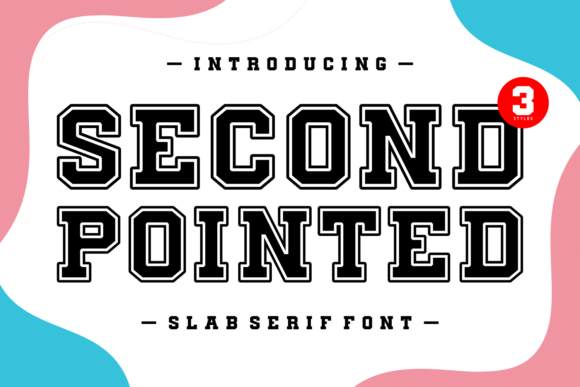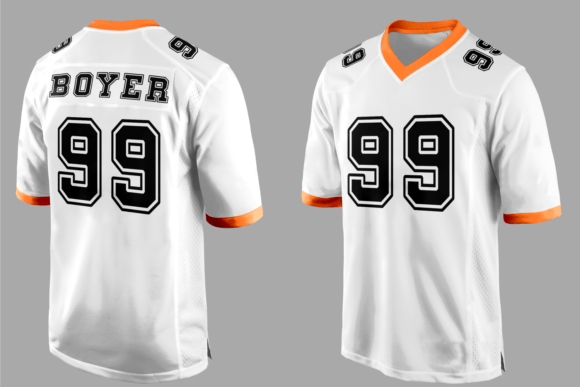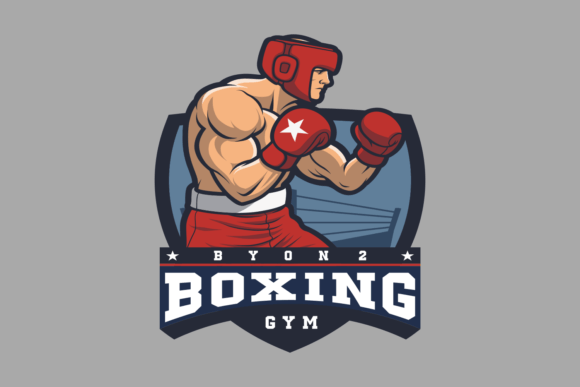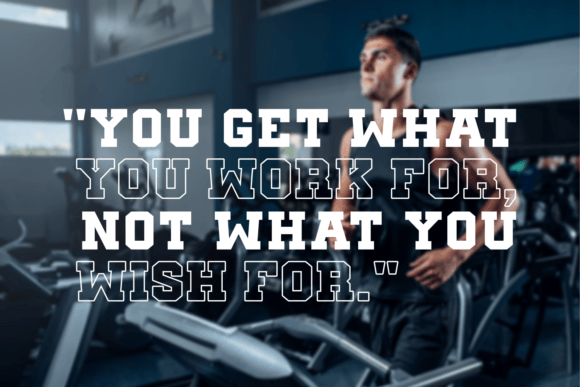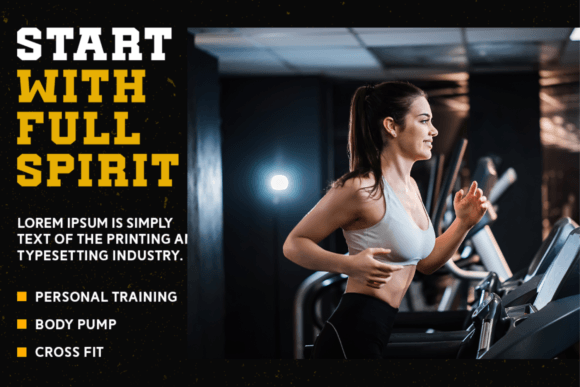
Second Pointed Font
About Second Pointed Font
“Second Pointed” is a dynamic college sports display font that exudes strength and energy. Its bold, sharp letterforms convey a sense of determination and athleticism, making it the perfect choice for sports team logos, jerseys, and event posters. This font captures the spirit of competition with a distinctive, edgy style that stands out in the crowd.